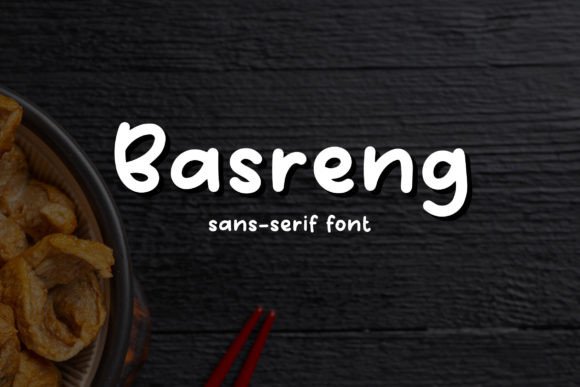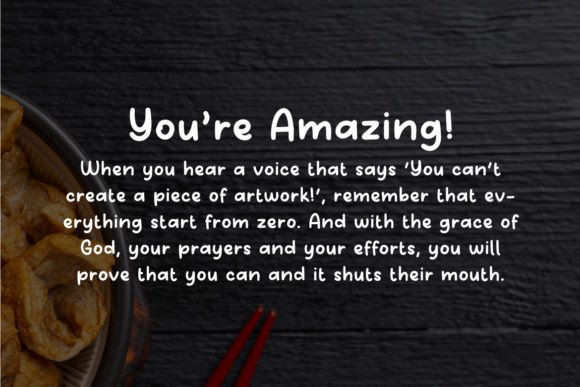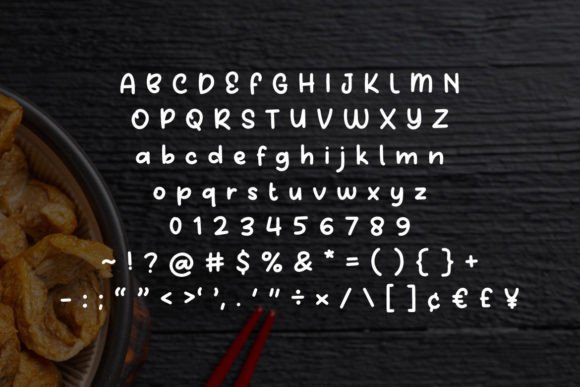
About Basreng Font
Basreng is a bold and cute handwritten font with a simple and modern look.Basreng can be used in any work such as book title, book content, storybook, music cover, children's book, poster, advertisement, social media content, logo, and many more.